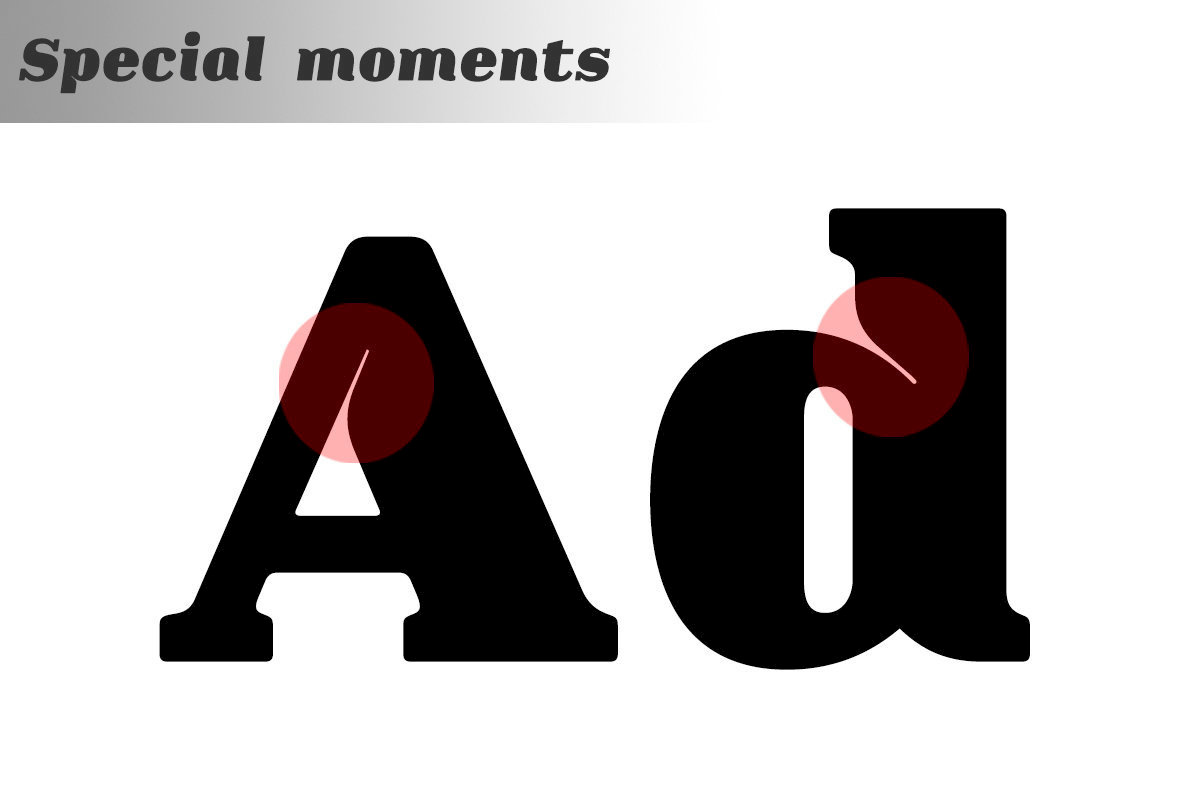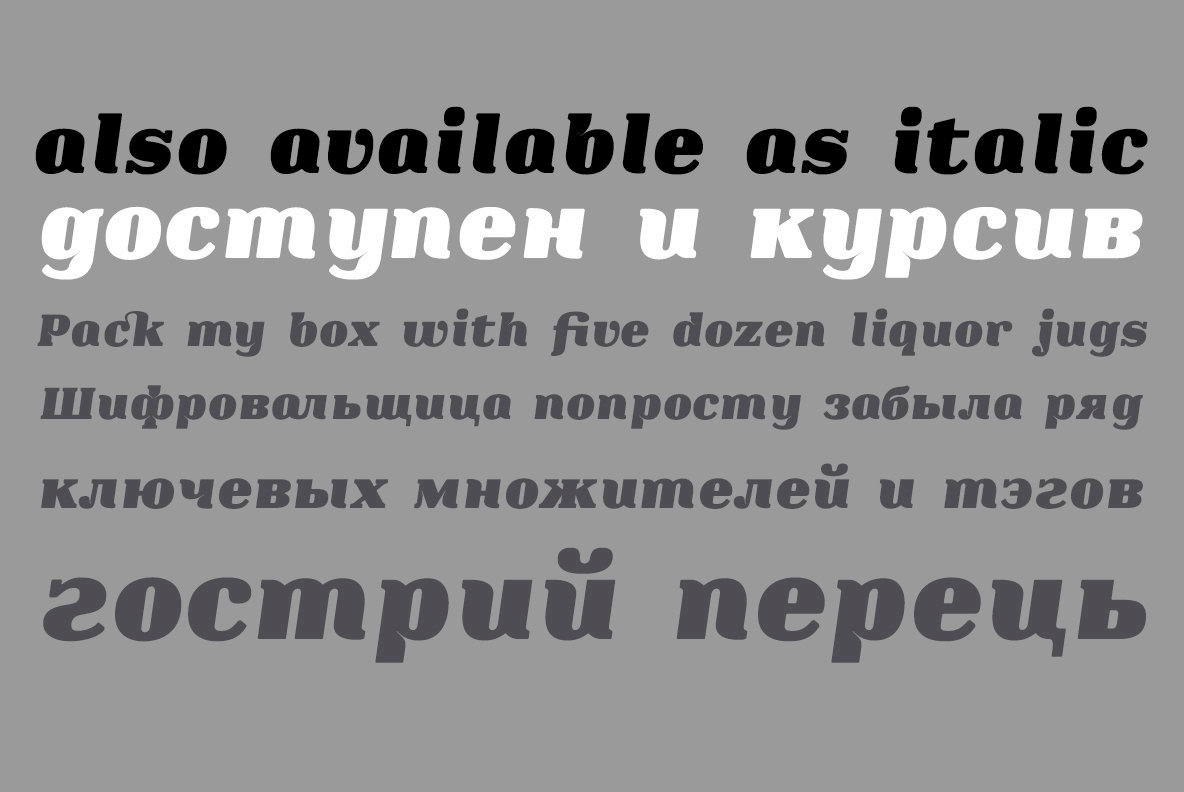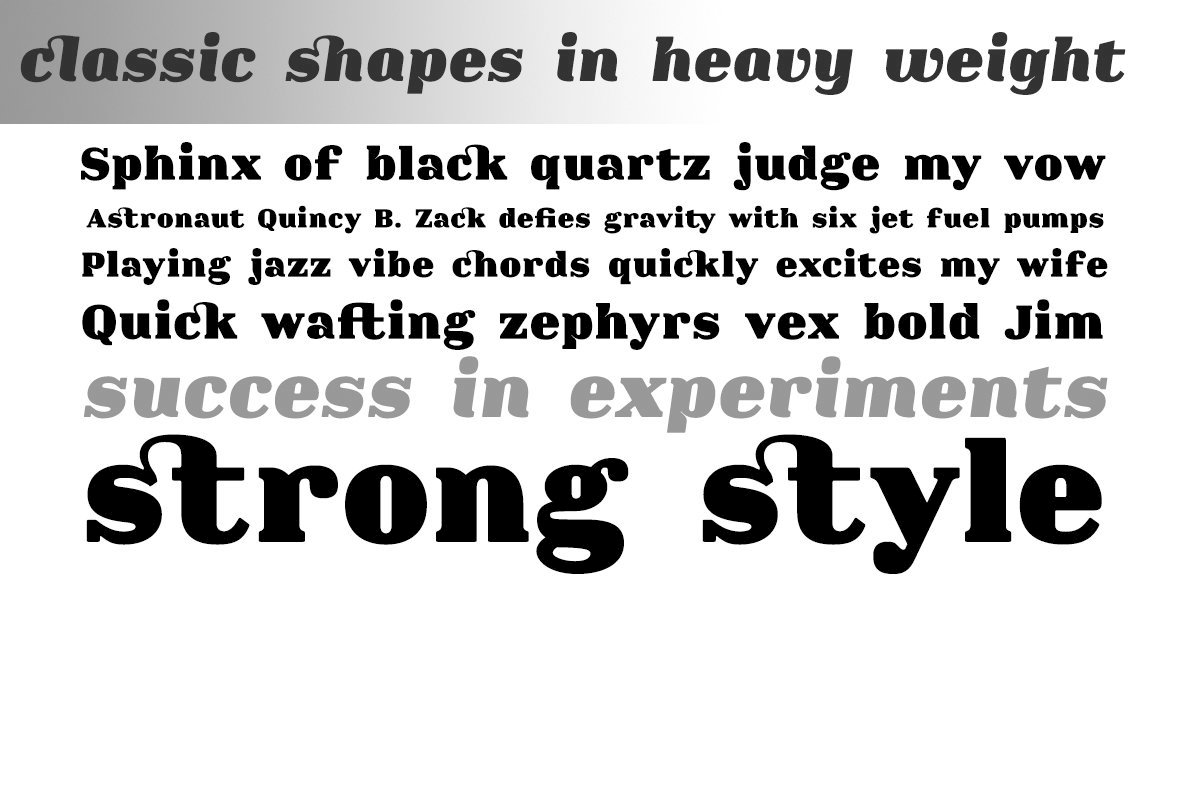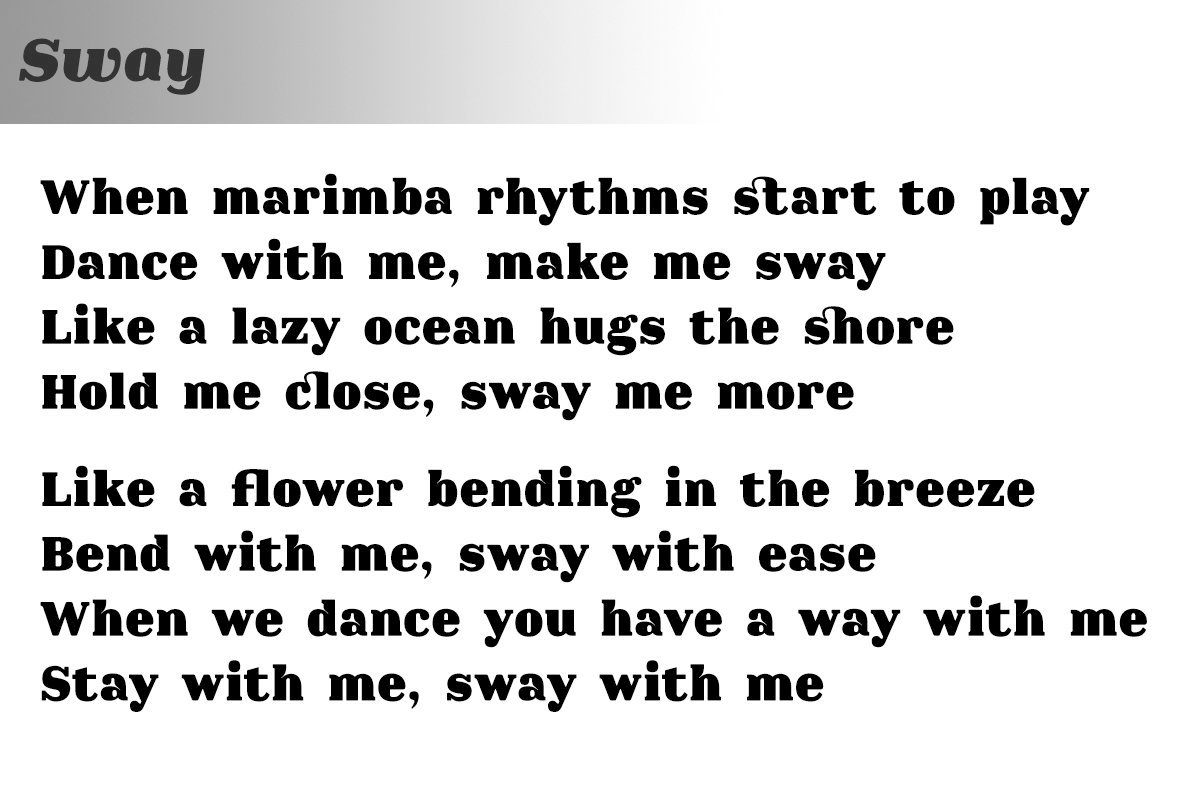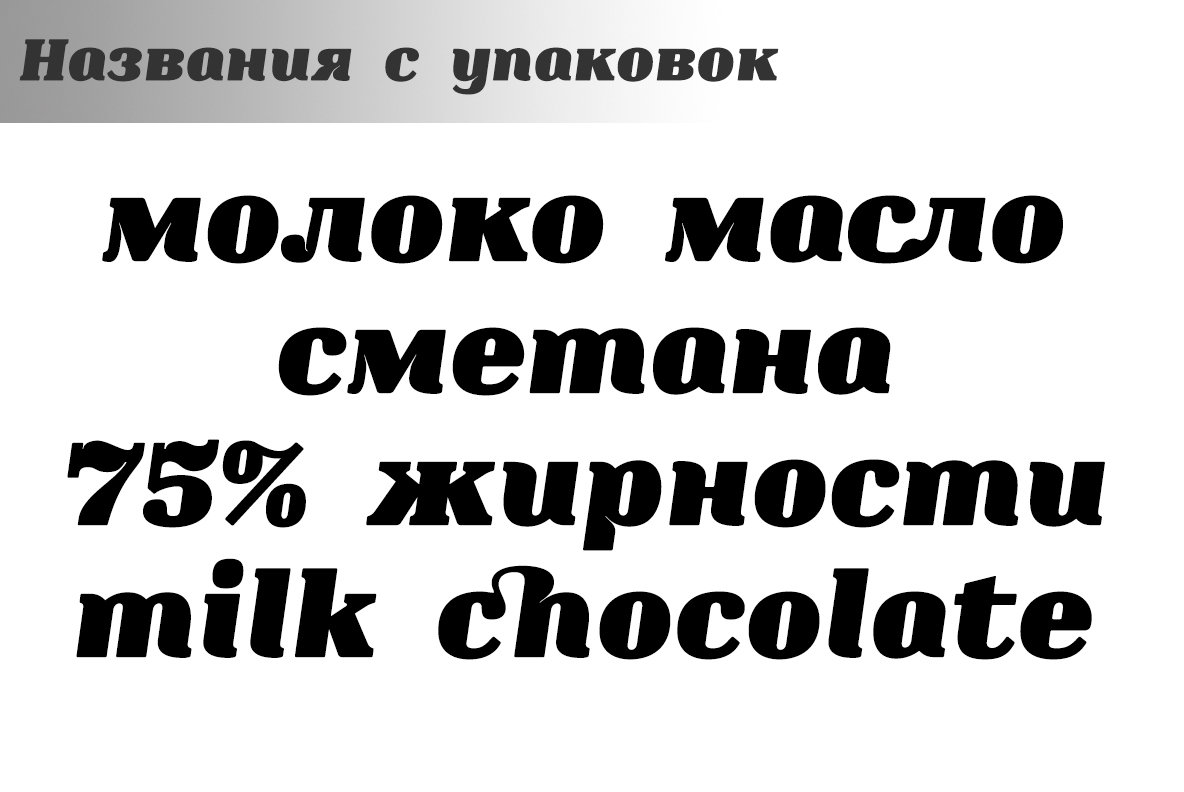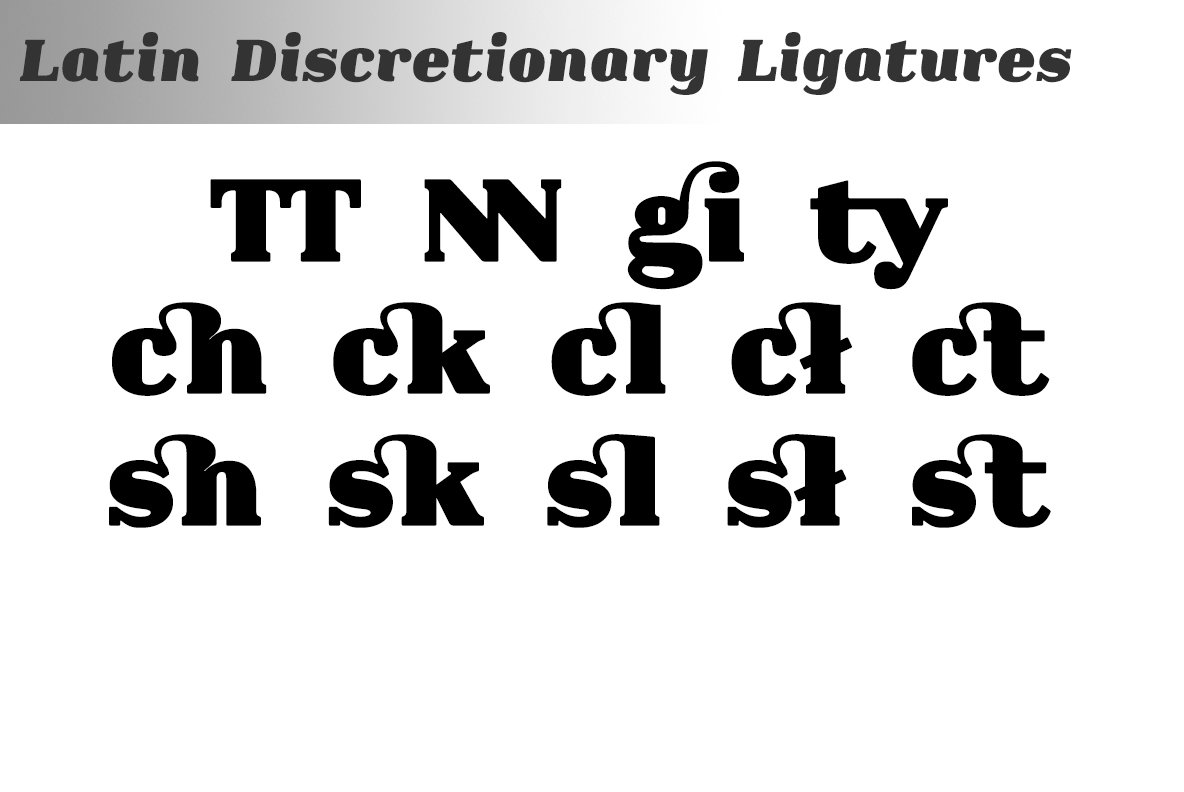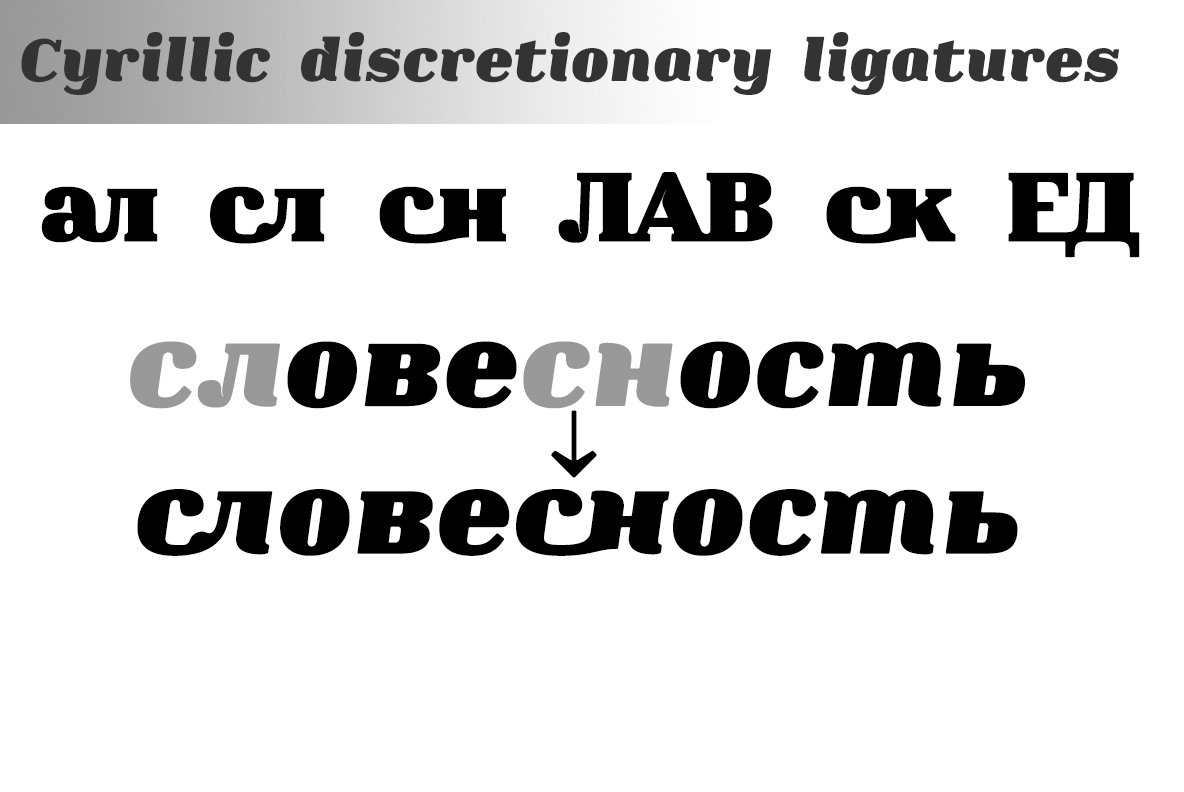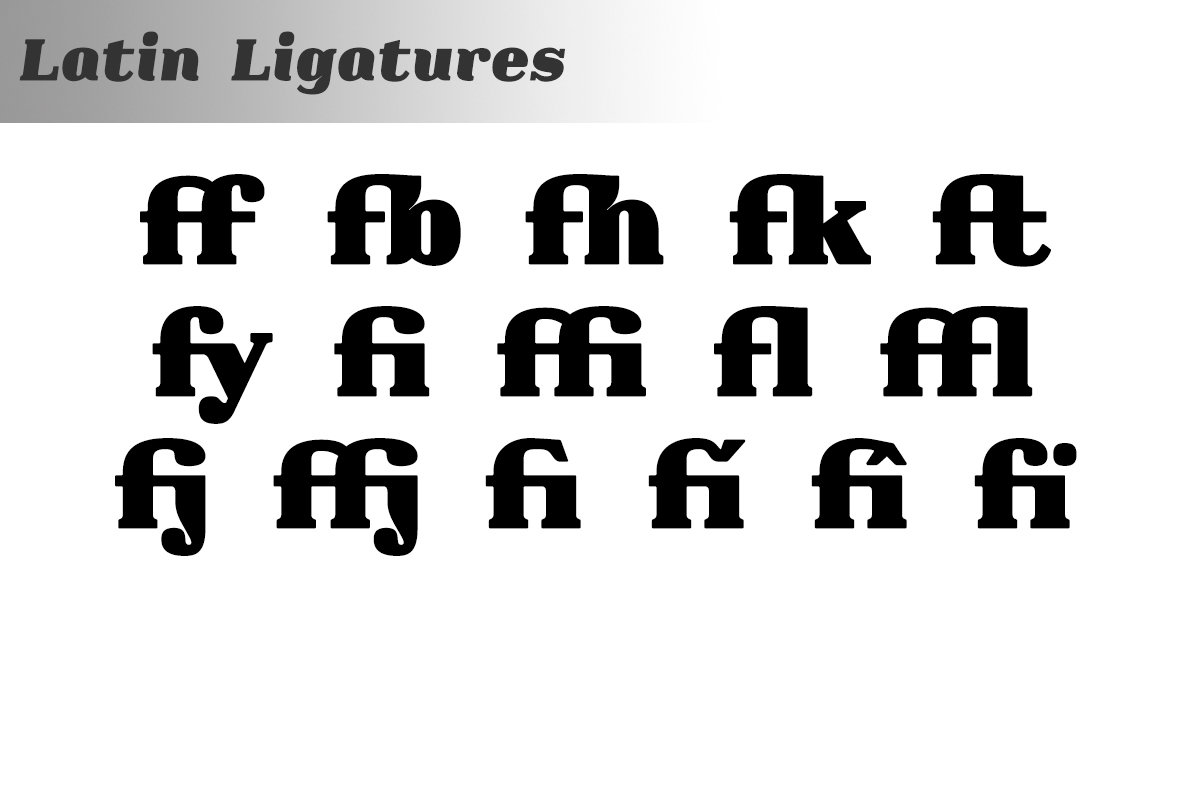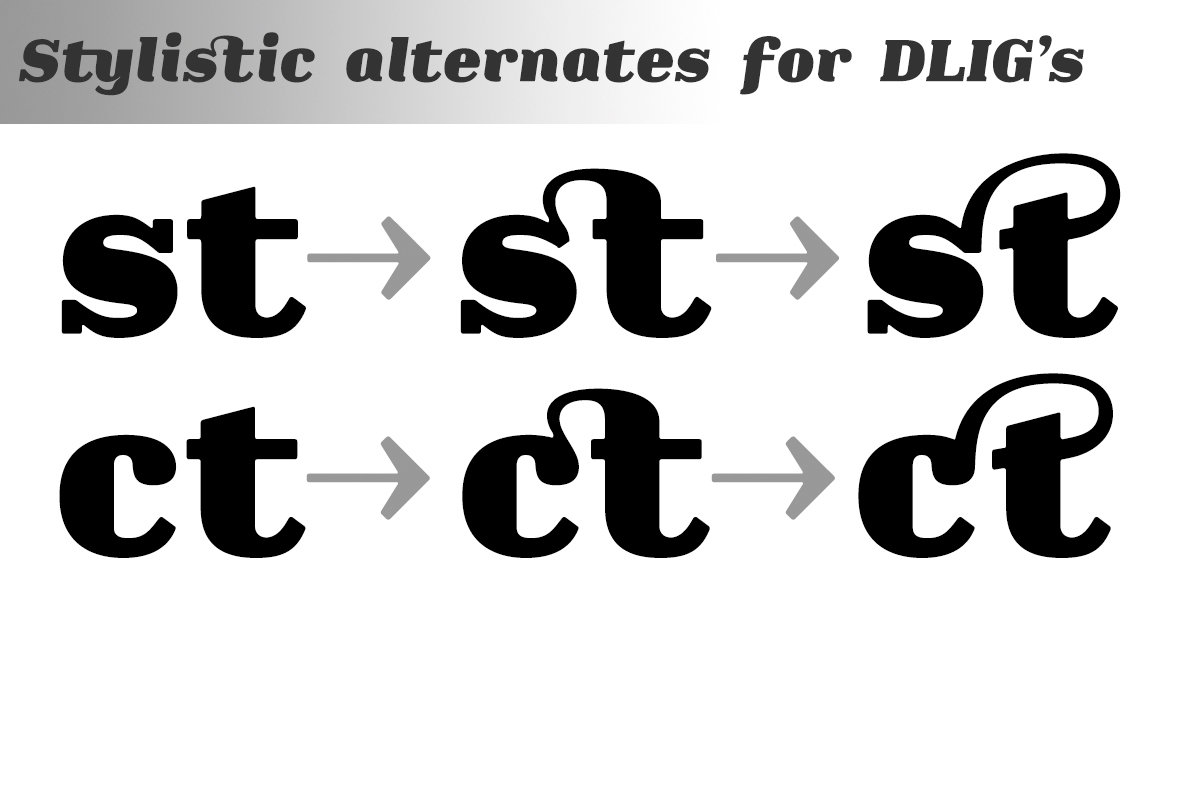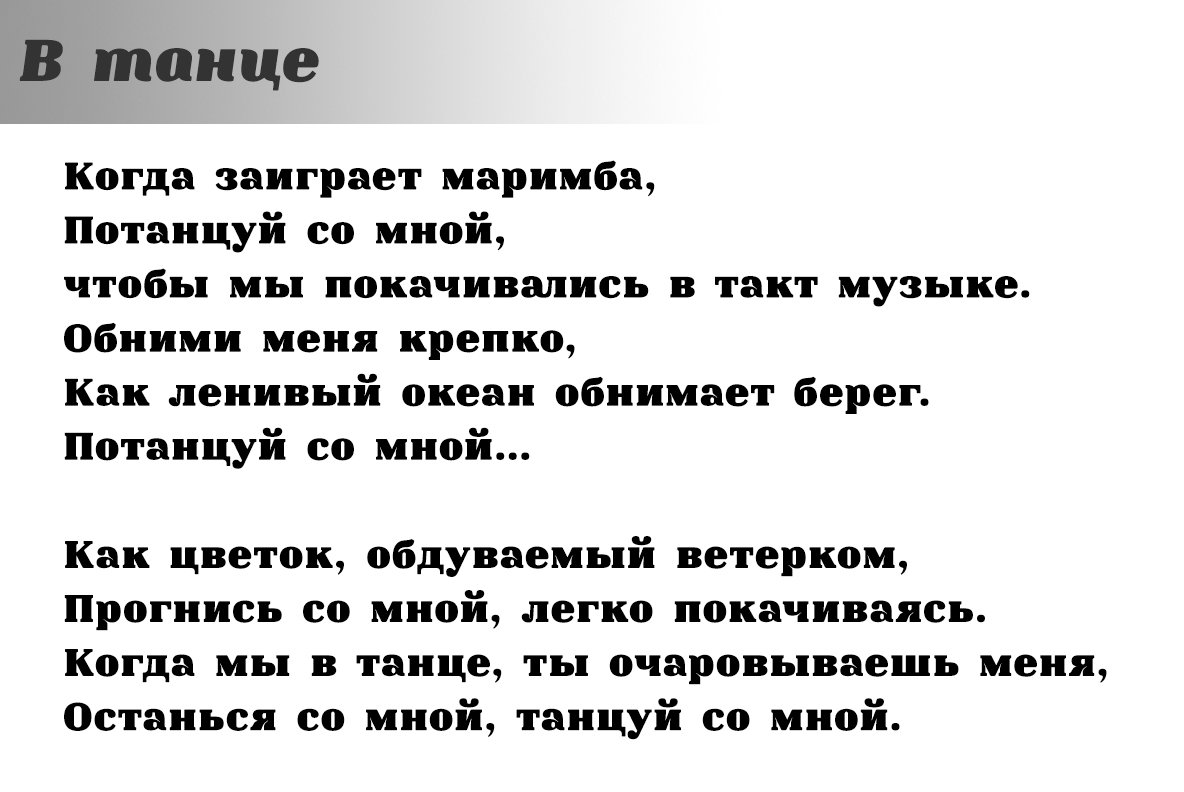
Clarenta 4F Font
Designed in 2011 by Sergiy Tkachenko, Clarenta 4F offers a sophisticated approach to serif typography, making it an ideal choice for graphic designers seeking a refined aesthetic. Published by 4th February, this font seamlessly blends tradition with versatility, adapting to various design contexts.Clarenta 4F: Timeless Font by Sergiy Tkachenko
Notable Features
Crafted for the discerning designer, Clarenta 4F stands out in any design portfolio.